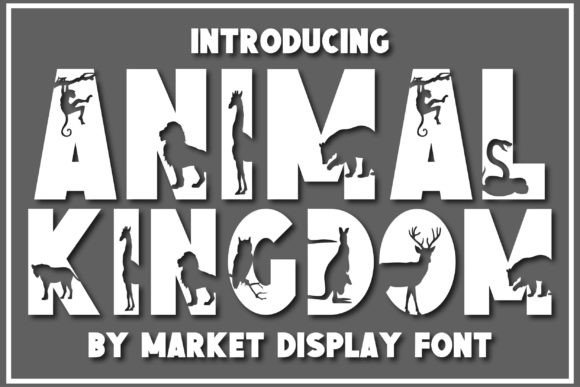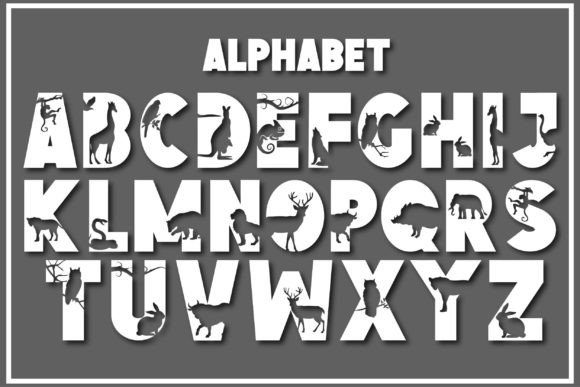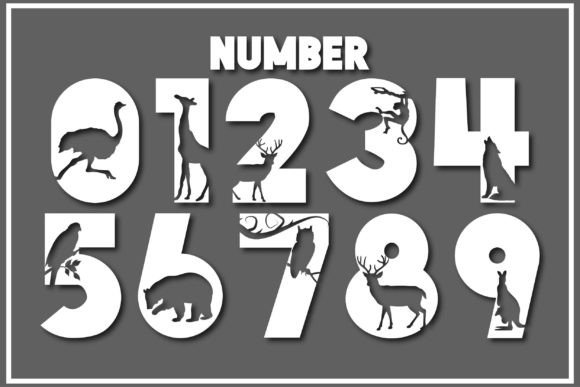
Animal Kingdom Font: A Wild Decorative Font for Cricut & DIY
About the Animal Kingdom Font
Experience the unique personality of Animal Kingdom Font, a font designed for impact. Animal Kingdom celebrates nature and wildlife in all its forms. This gorgeous animal-themed decorative font will turn any craft idea into a true standout! It works great for all your nature-themed projects.
Animal Kingdom’s bold, playful forms are ideal for headlines, logos, short-form text on posters or packaging, and eye-catching social media graphics. Its decorative nature makes it less suitable for body copy or UI elements where readability is paramount; long blocks of text set in this font will be difficult to read.
The font’s energetic personality pairs well with clean sans-serif fonts like Open Sans for a balanced contrast, or a more refined serif like Garamond for a touch of elegance. Consider pairing it with a script font for added flair in specific applications like invitations or branding for a boutique wildlife shop.
Animal Kingdom is best suited for brands and projects conveying a sense of adventure, conservation, or childlike wonder. Avoid using it for projects requiring a sophisticated or minimalist aesthetic.
Animal Kingdom Font Usage Examples
Animal Kingdom Font Example